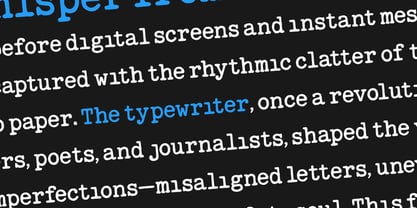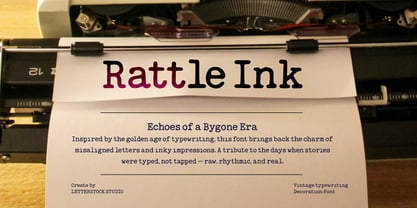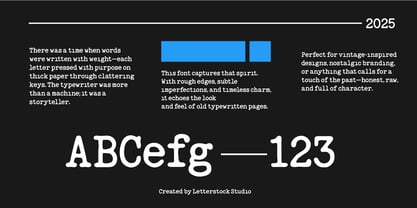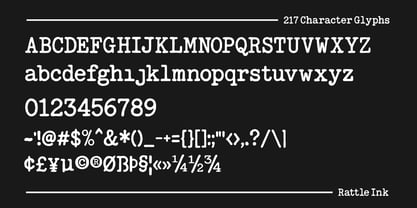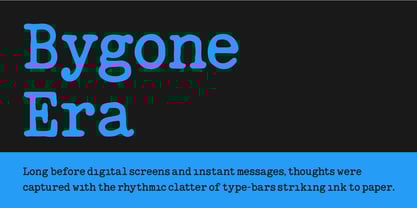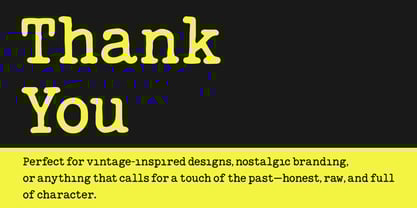
Rattle Ink
by LetterStock
The Rattle Ink Font Family was designed by Studio LetterStock and published by LetterStock. Rattle Ink contains 1 styles.
Rattle Ink brings back the classic vibe of antique typewriters with beautifully imperfect letters and realistic ink texture. Whether you’re designing retro book covers, branding for a heritage brand, editorial layouts, or authentic vintage quotes, Rattle Ink adds timeless personality to every project.
Features:
• Authentic vintage typewriter style
• Subtle ink bleed and rough edges
• Uppercase, lowercase, numerals & punctuation
• Multilingual support
• Perfect for retro branding, posters, editorials, scrapbooking, and more.